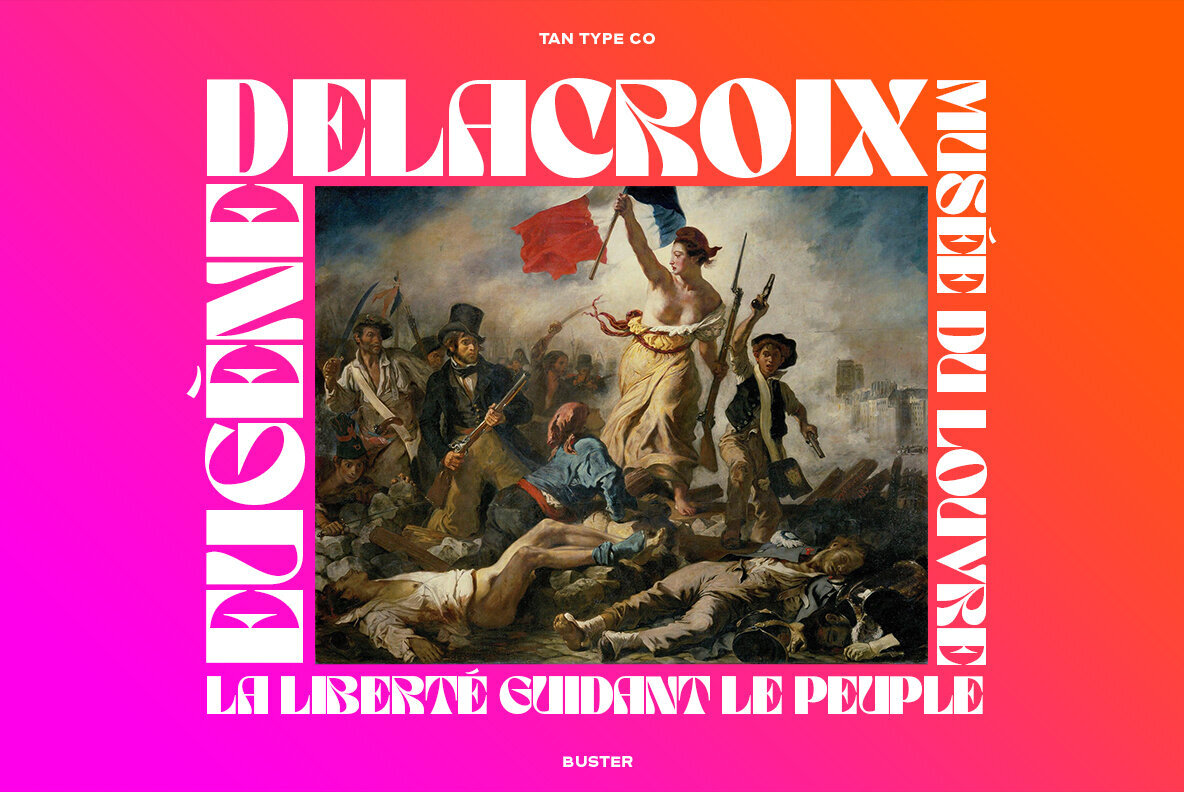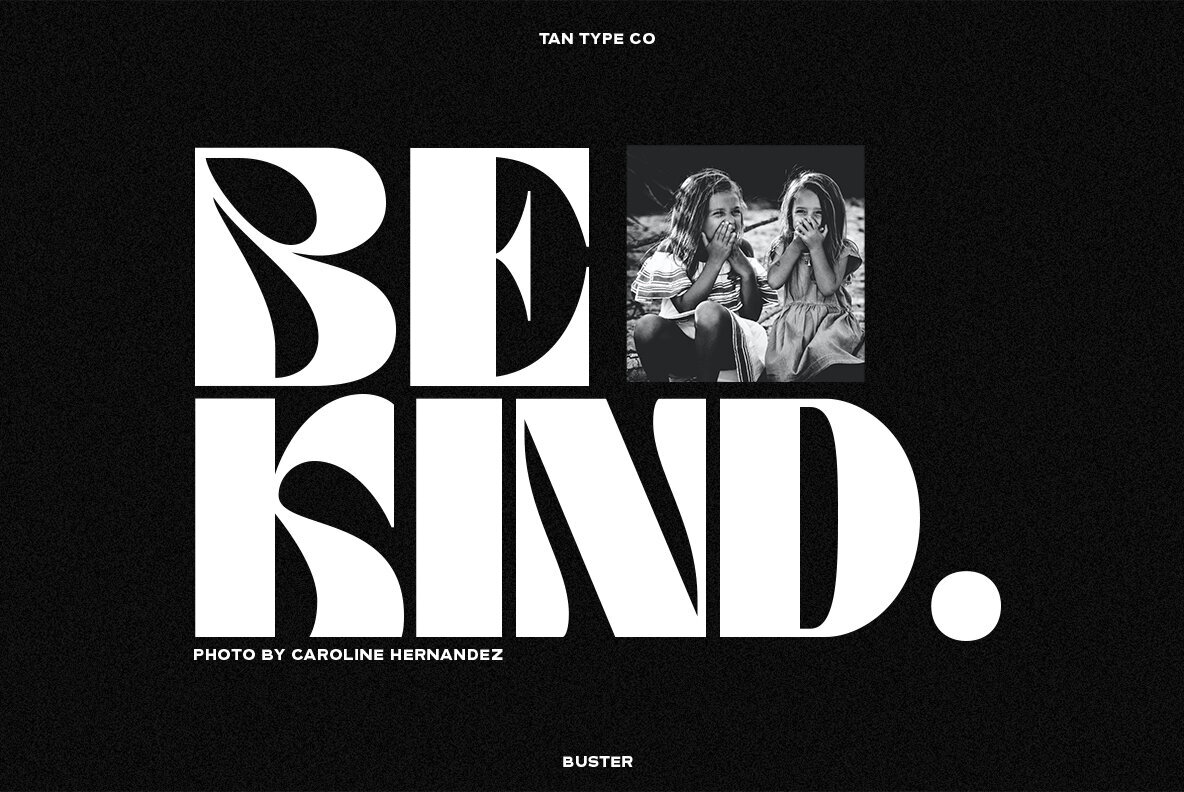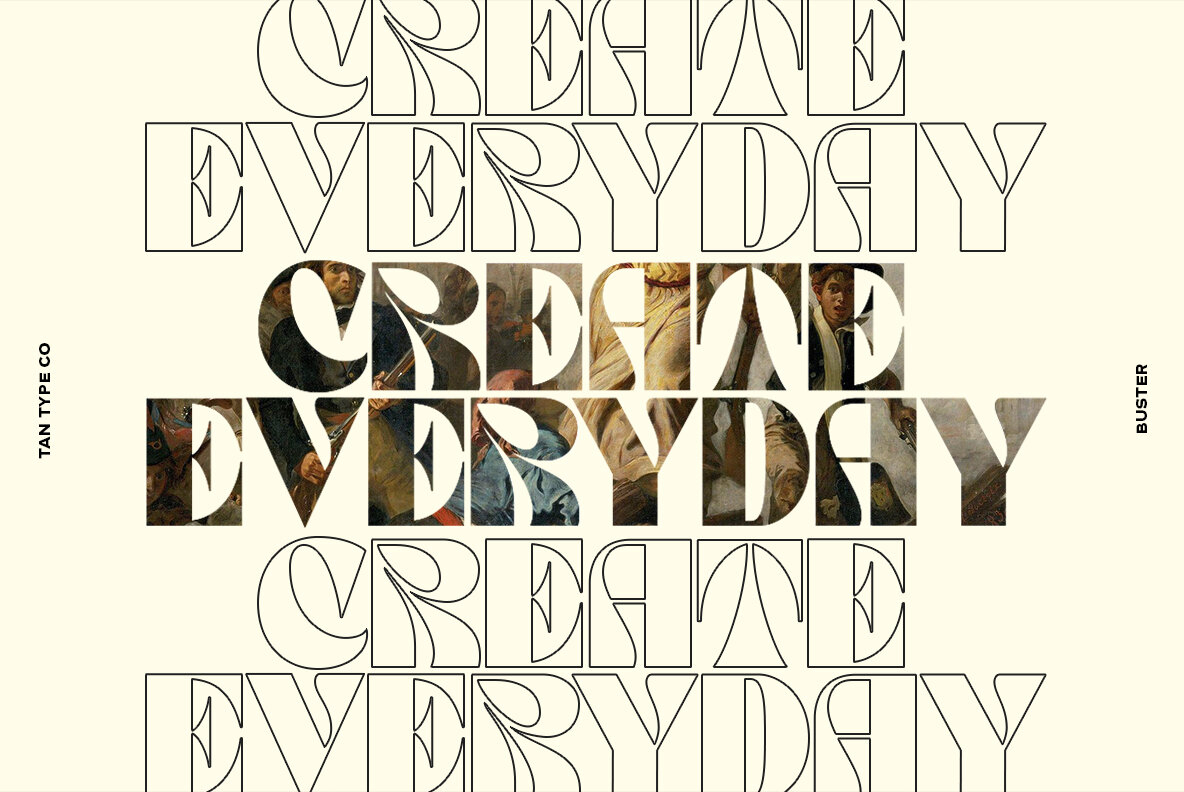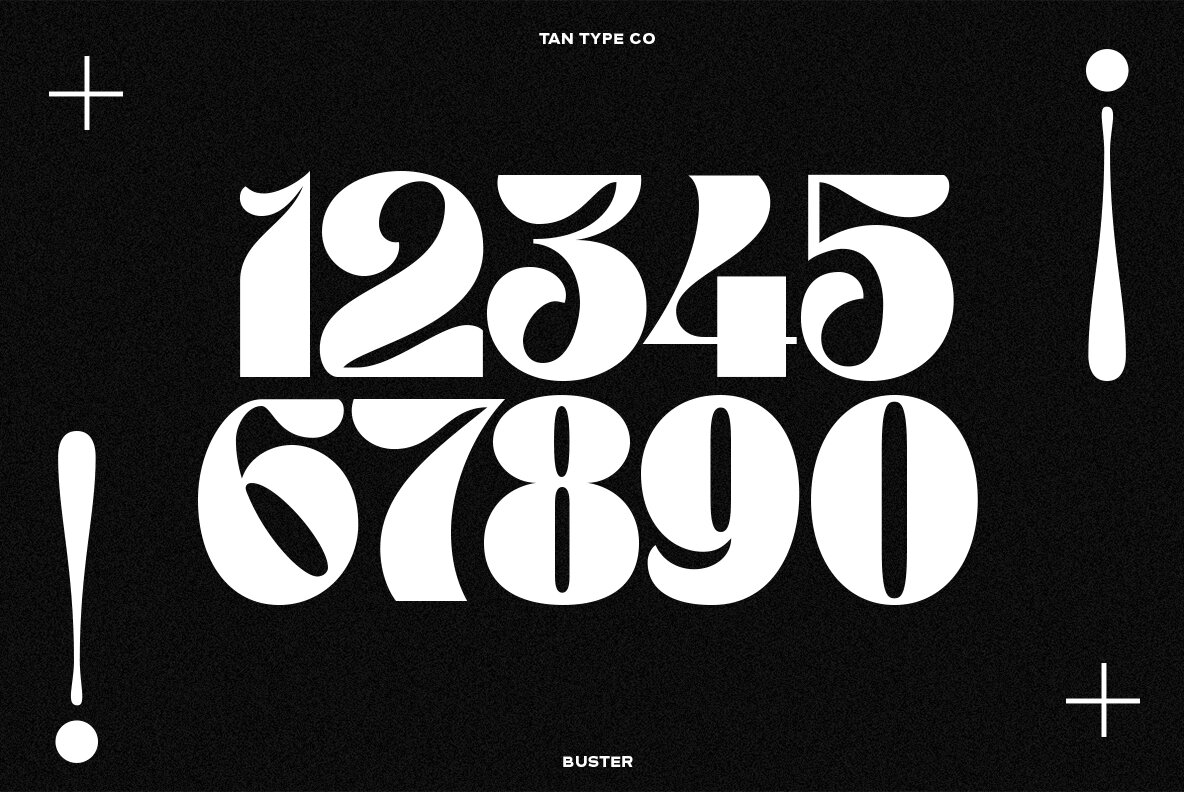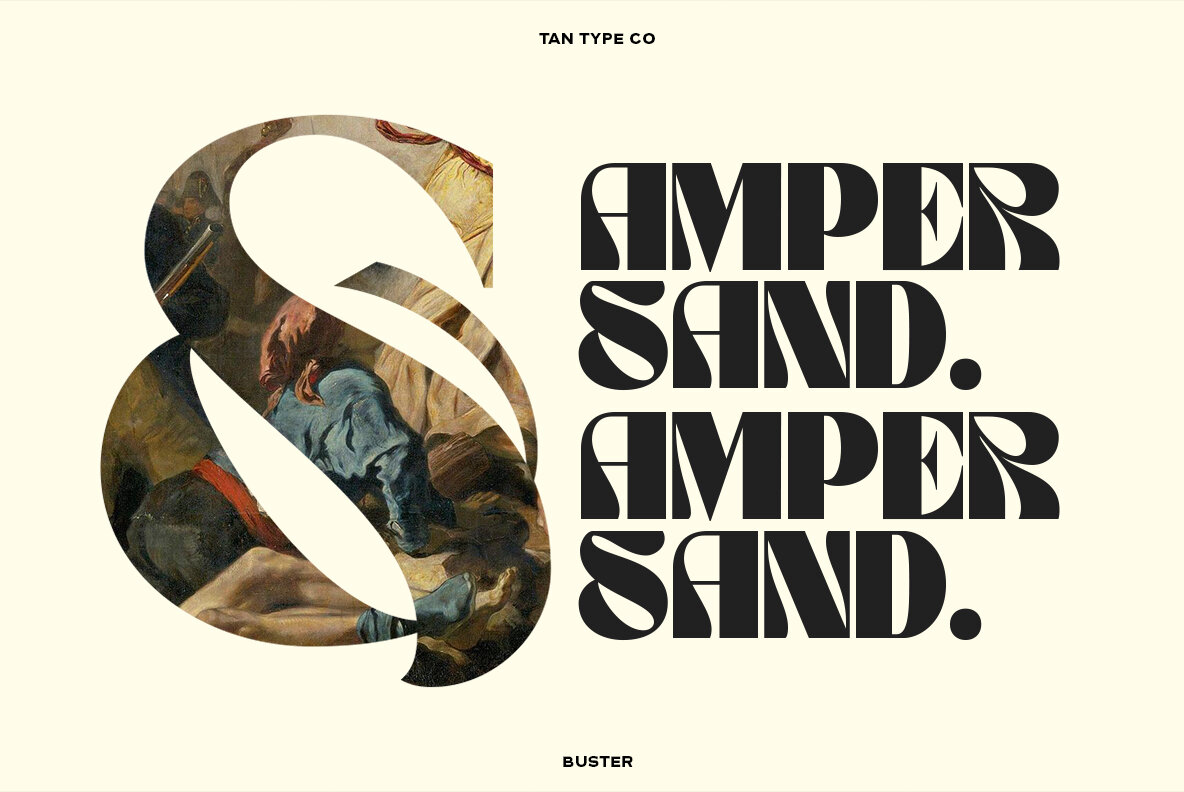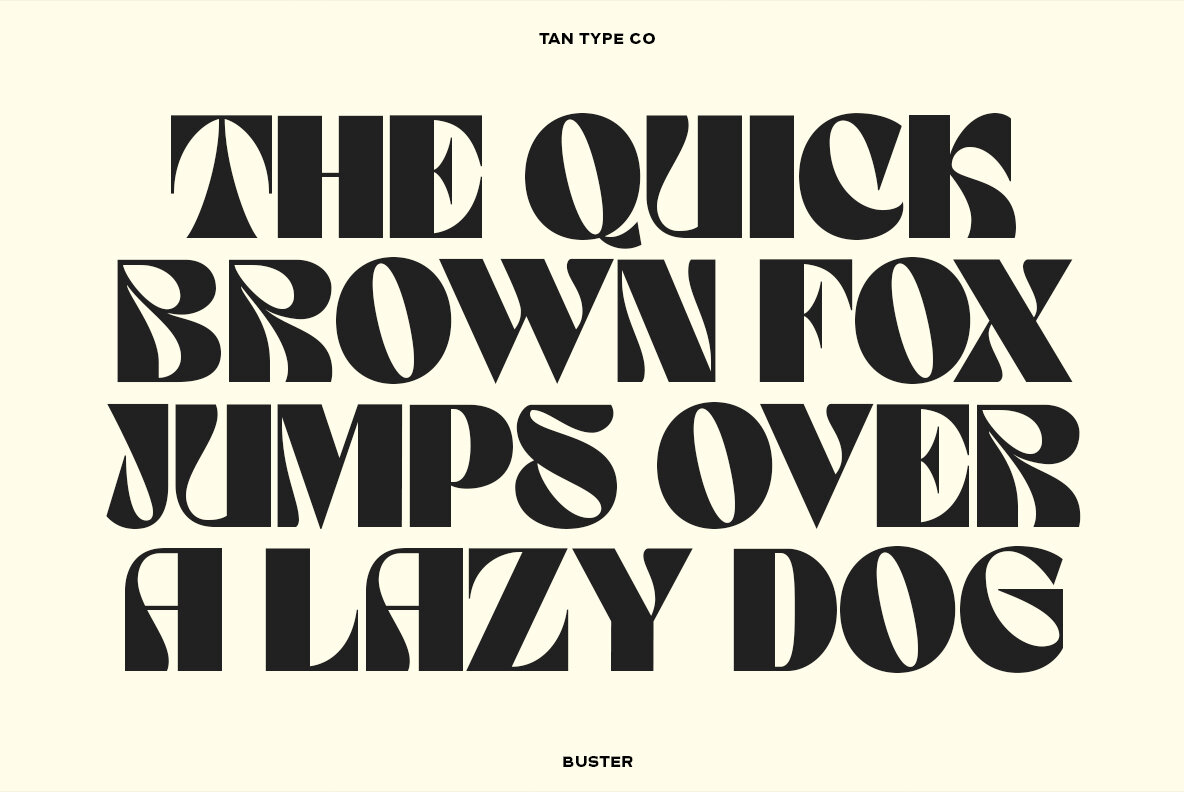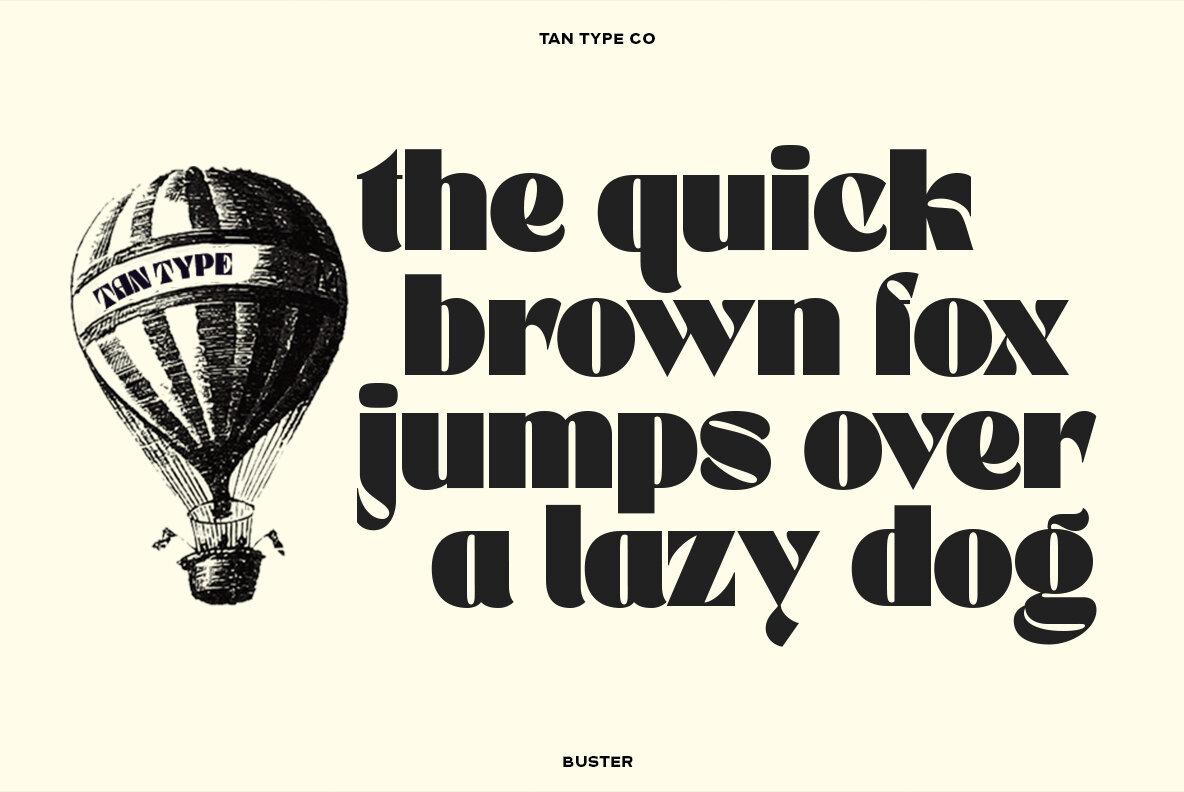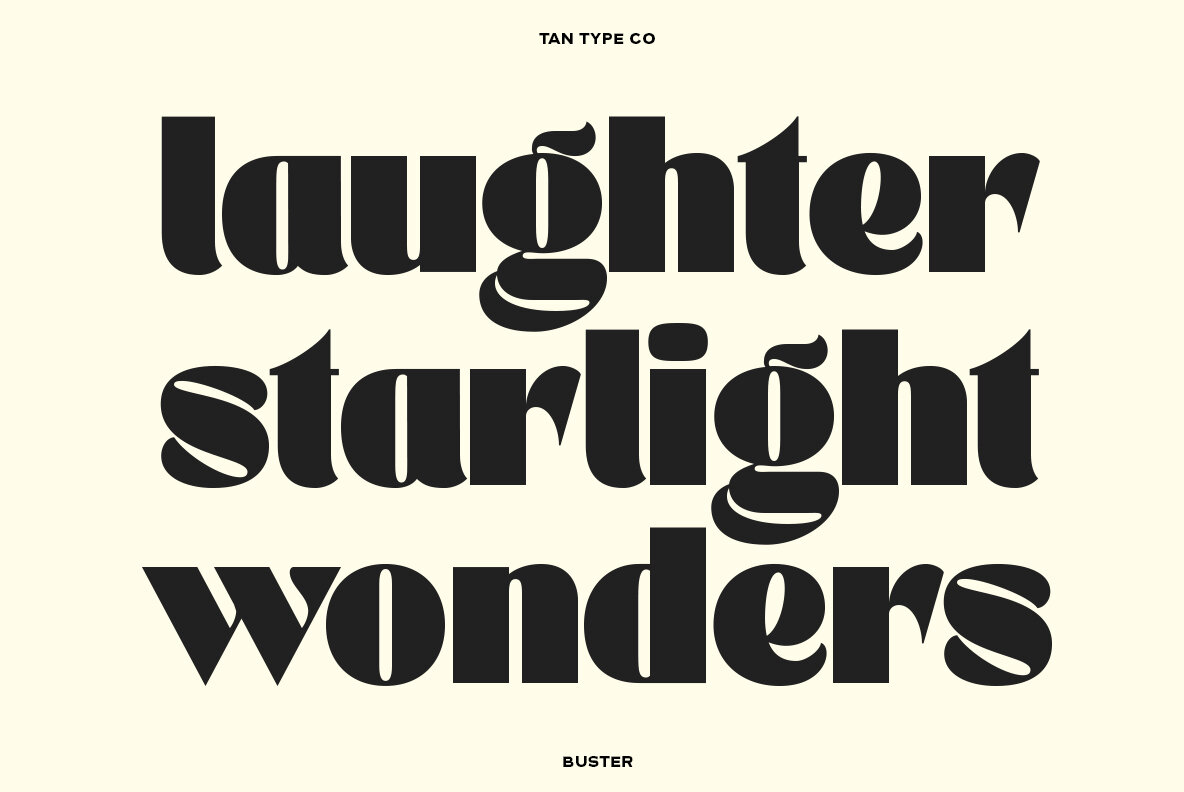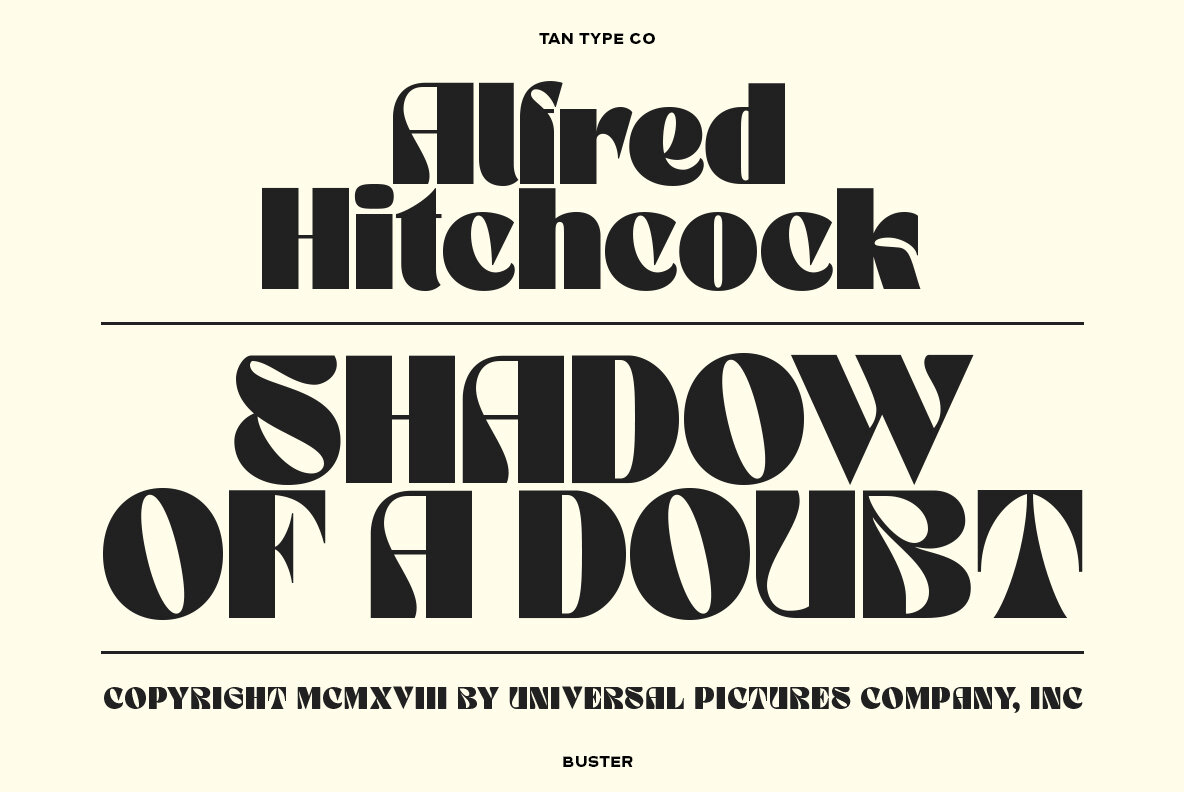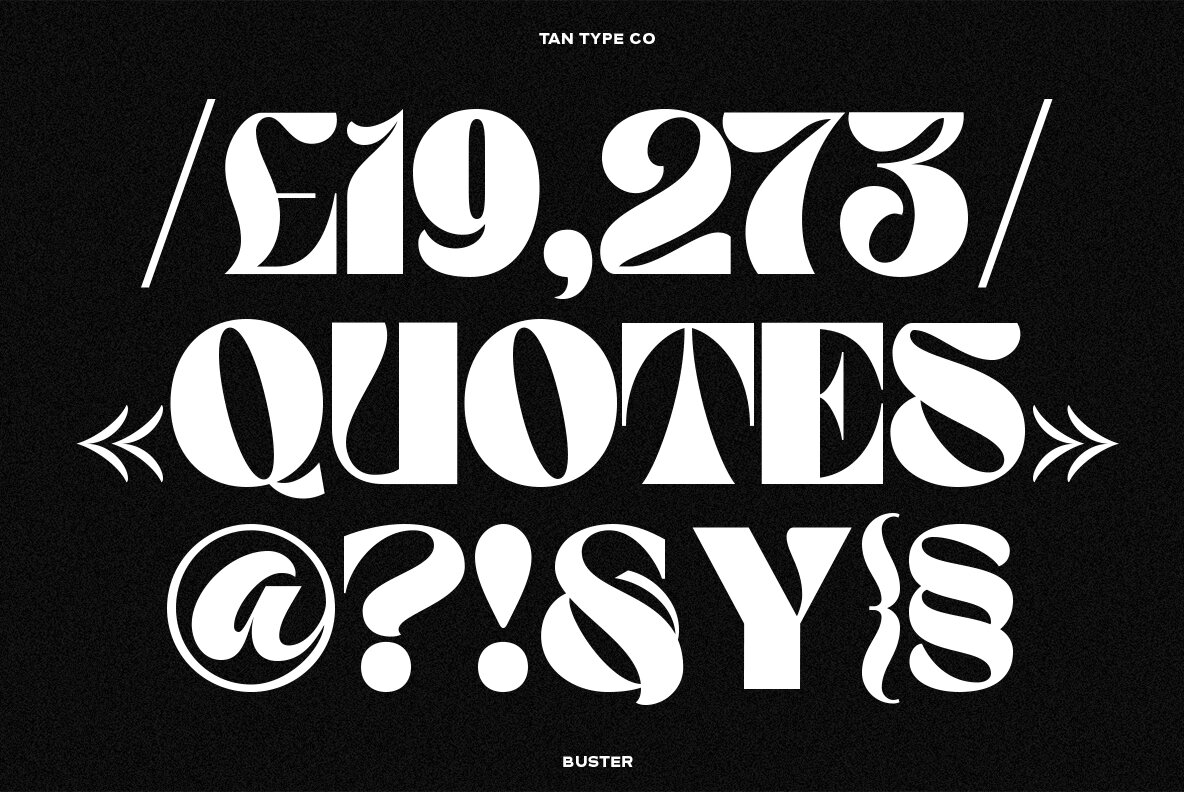
Tan Buster Font
Tan Buster Bold
Tan-Buster is a retro inspired display typeface. It's fun and groovy with a bold personality. Perfect for masthead, logo, or anything your creativity takes you.
TanType Co. is a distinguished font designer specializing in classical and decorative typefaces that exude elegance and sophistication. Renowned for their meticulous craftsmanship, each type design by TanType Co. is packed with over 300 glyphs and features advanced OpenType functionalities, ensuring versatilit...